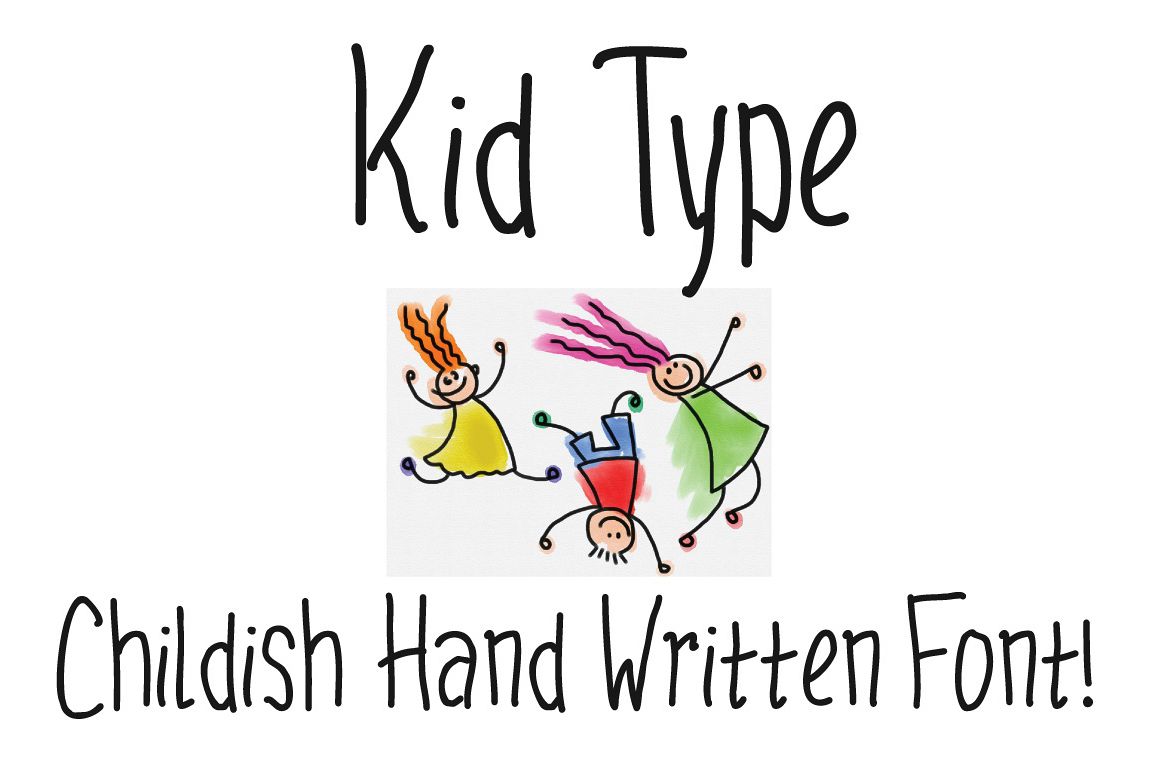
Introducing cute and playful kid handwritten font! This font nice for add children touch in your design.
This font contain 270 glyphs, with complete punctuation, and supported to Latin Language, Eastern Europe, and Turkish.